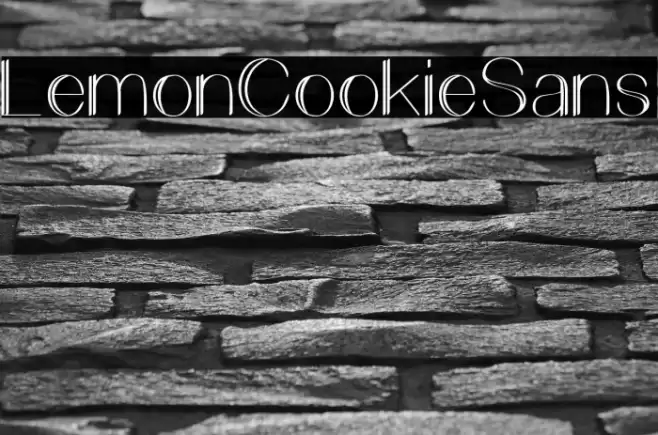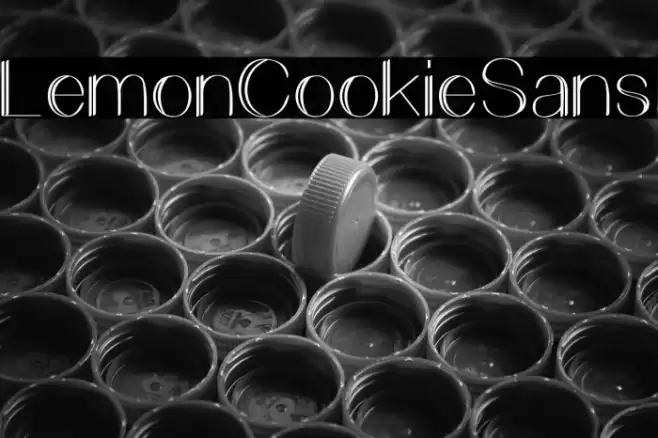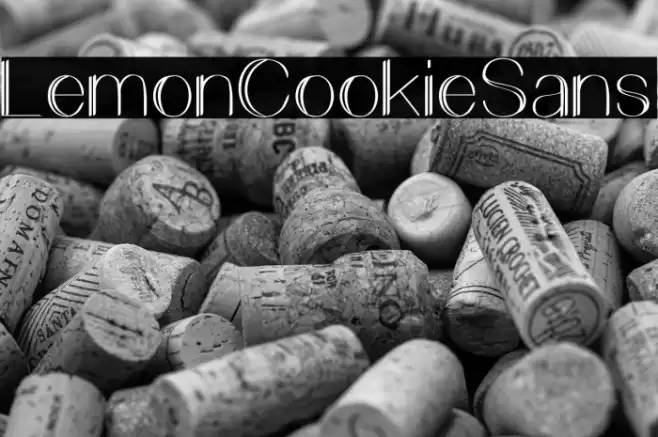
LemonCookieSans Font
LemonCookieSans Description
This font features a modern and stylish design with a unique blend of geometric and linear elements. The uppercase and lowercase letters are characterized by their elongated forms and thin, consistent strokes, giving a sleek and contemporary appearance. The numerals and special characters maintain this aesthetic, providing a cohesive look across all glyphs. The font's clean lines and minimalistic style make it versatile for various design applications.
A modern, geometric font with elongated forms and thin strokes from Uncategorized fonts.
- Proposed Projects: Ideal for branding, editorial design, and digital media projects that require a modern and sophisticated touch.
- Use Case: Headlines, Logos, Branding